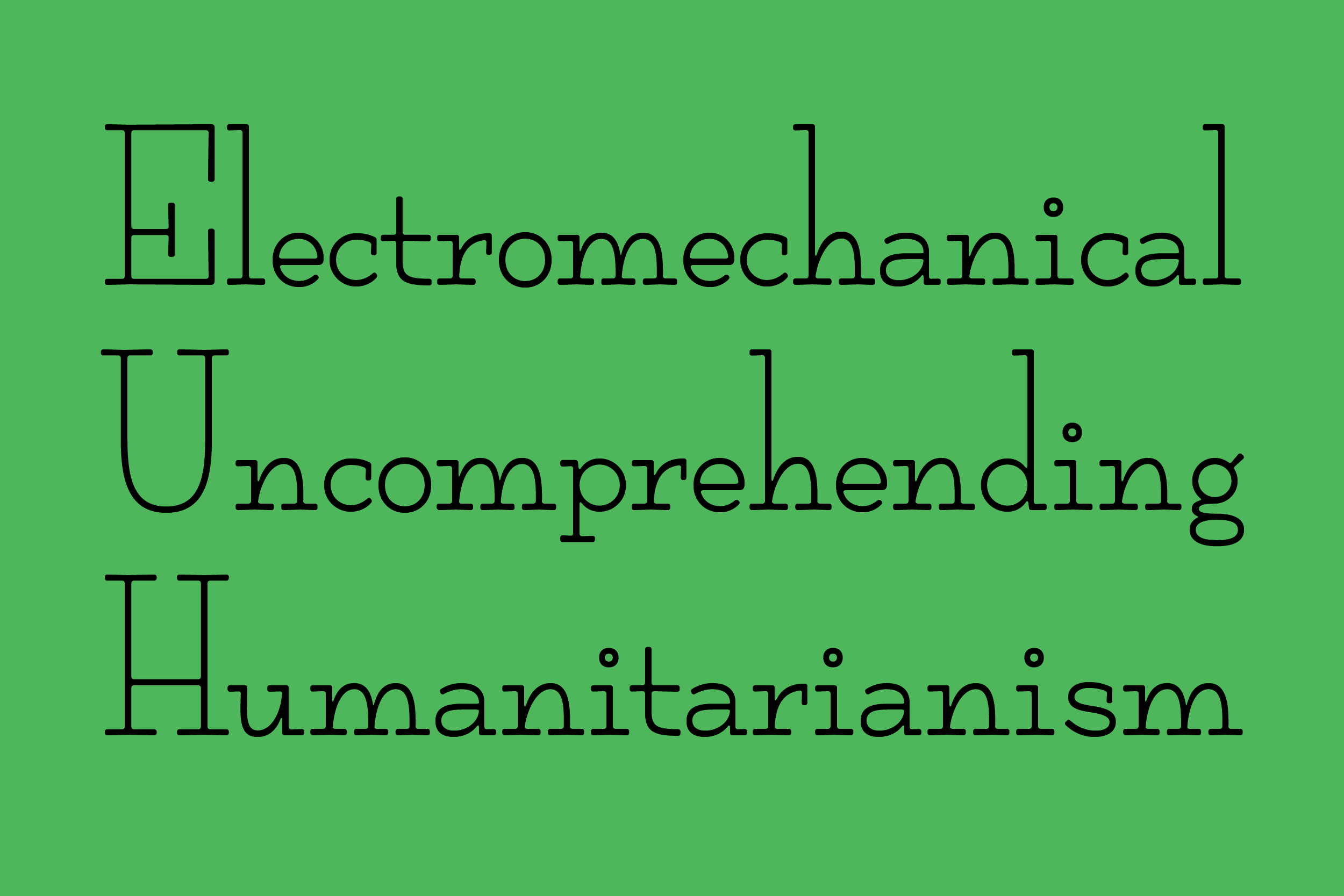
Odie V1
Odie is a friendly serif with dramatically high ascenders and softened corners. It perfectly conveys warm, nostalgic feelings. The original source was an inscription in a book from 1916.